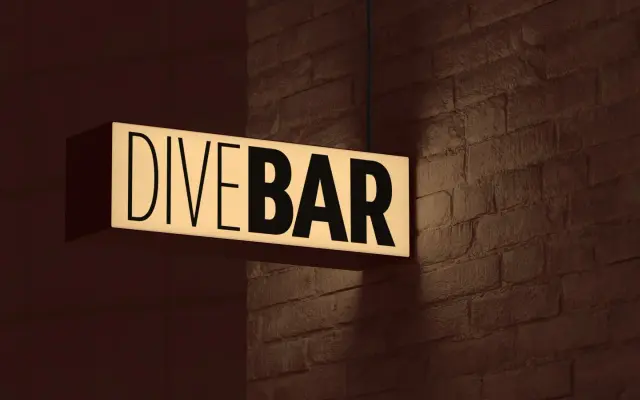
Corbert Compact
An extremely narrow geometric sans, narrower than Corbert Condensed, offered in nine weights with matching italics for space-constrained layouts.
Derived from the Corbert geometric sans family, this compact variant pushes narrowness further than the condensed cut, covering nine weights from Thin to Black each with a matching italic. Over 540 characters per style include five numeral variants, fractions and alternate letterforms for a, e and g, with Latin coverage extending to Western, Southern and Central European languages. Best suited to tight editorial columns, signage and any setting where horizontal space is at a premium.
Corbert Compact is a geometric sans-serif, derived from the wider Corbert family, distinguished by its extreme narrowness and space efficiency while retaining geometric construction principles.